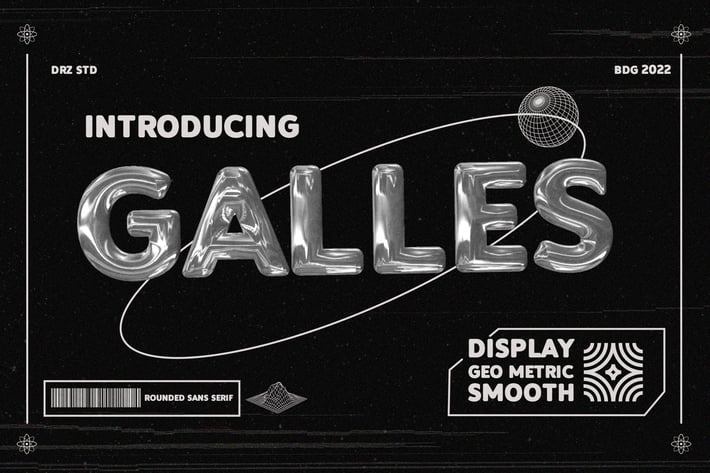
Galles - Rounded Sans Serif Font
Galles is a Rounded Sans Serif Font from Drizy studio. Offering all the basic styles you will need for a modern or space theme of your project.
Galles Features:
Multilinguals & Ligatures